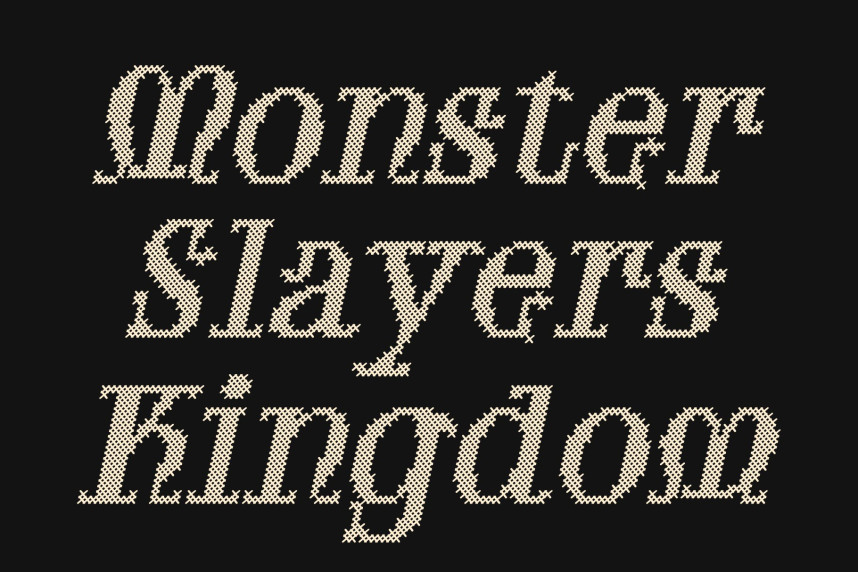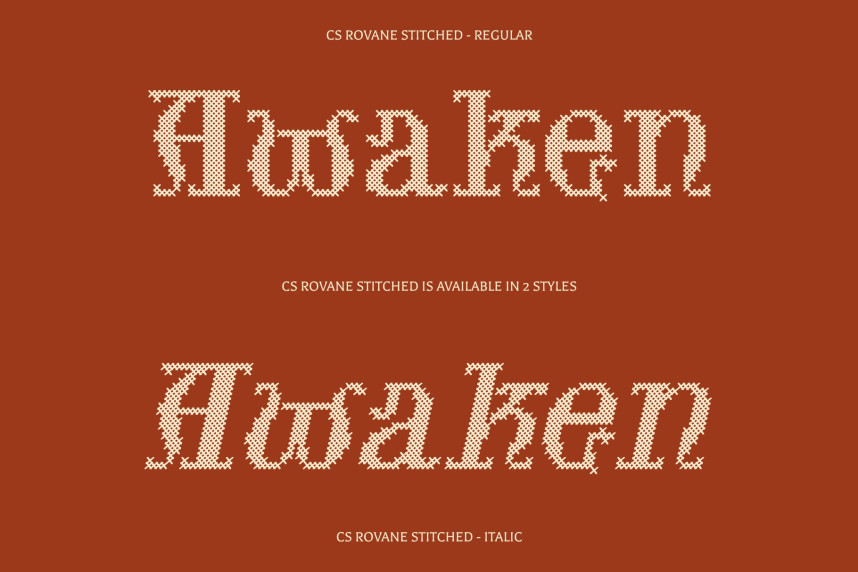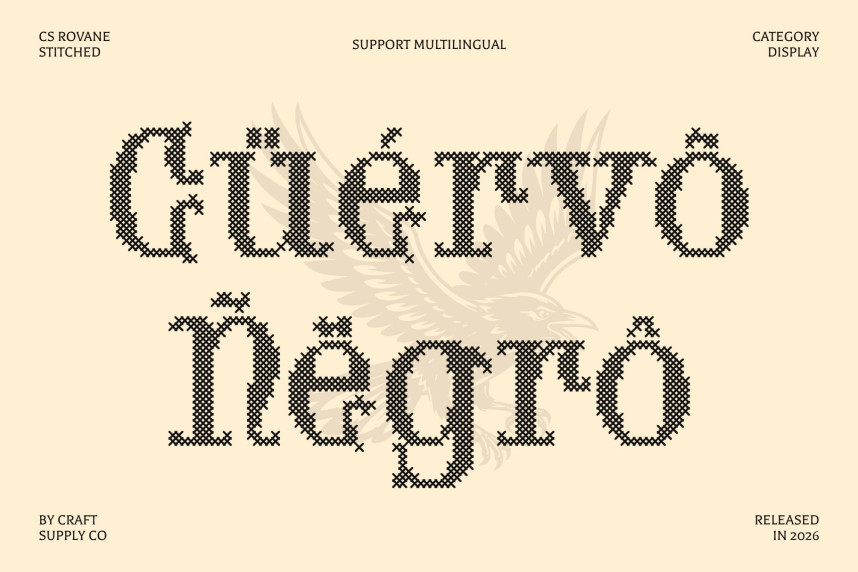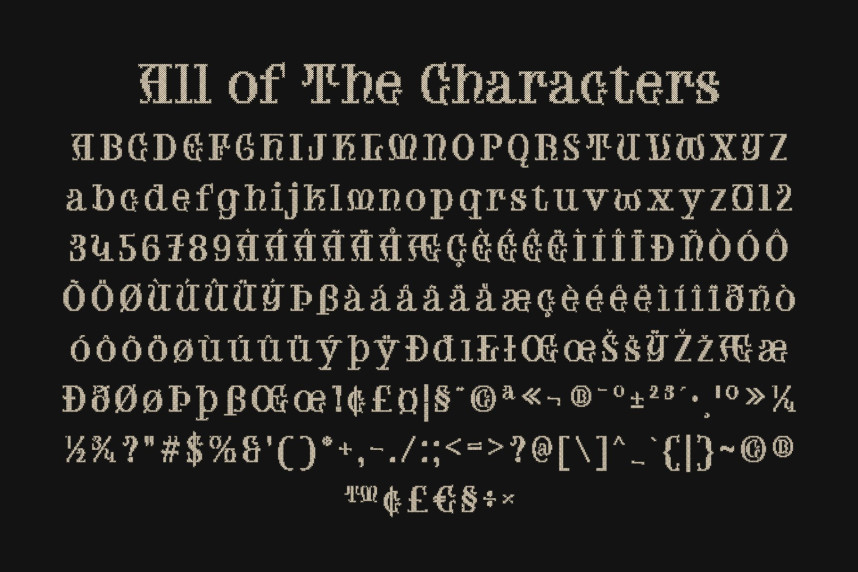
CS Rovane Stitched Font
CS Rovane Stitched Font – Uncial Font with Medieval Charm
A Timeless Display Typeface with Classical Roots
This is a display font inspired by the uncial tradition, known for its rounded strokes, flowing curves, and distinctive historical character. Drawing from medieval calligraphy and early manuscript lettering, this typeface captures the spirit of hand-crafted writing while presenting it in a polished, modern display form. Its elegant shapes and balanced proportions evoke the artistry of ancient scribes, giving every word a sense of heritage and refinement.